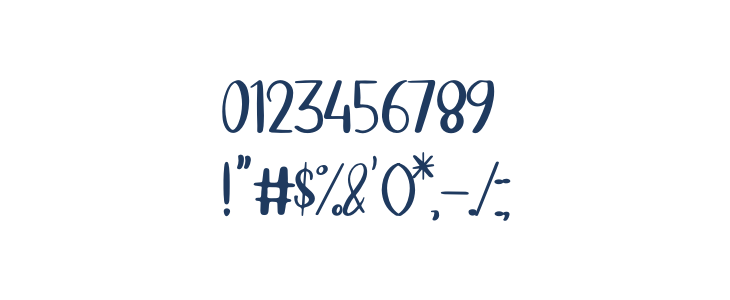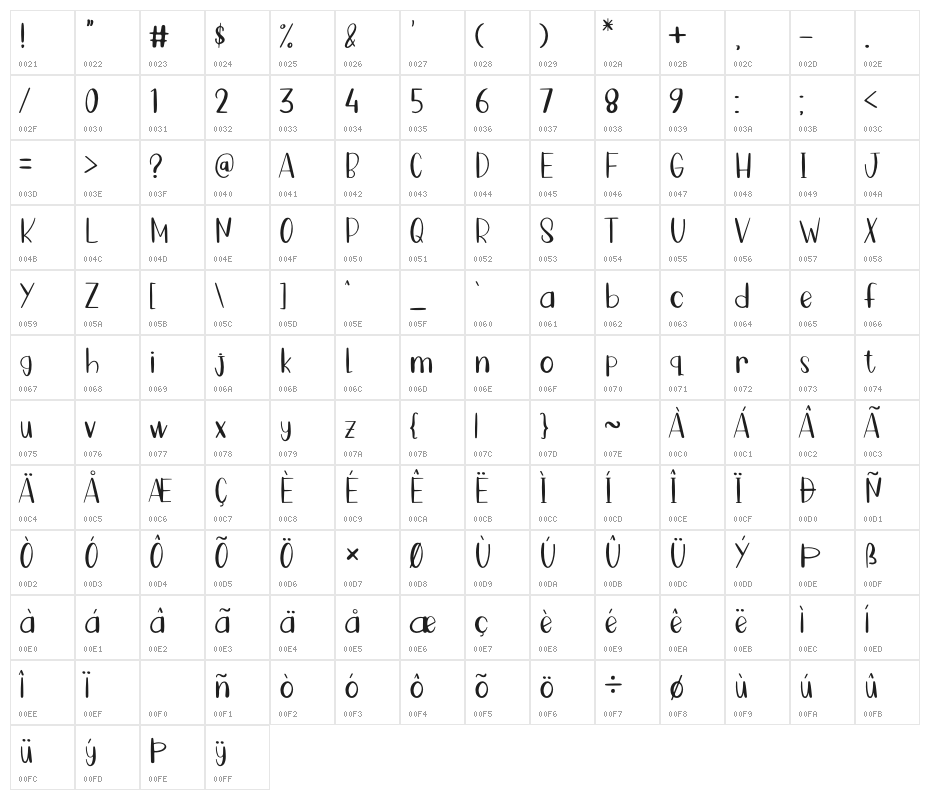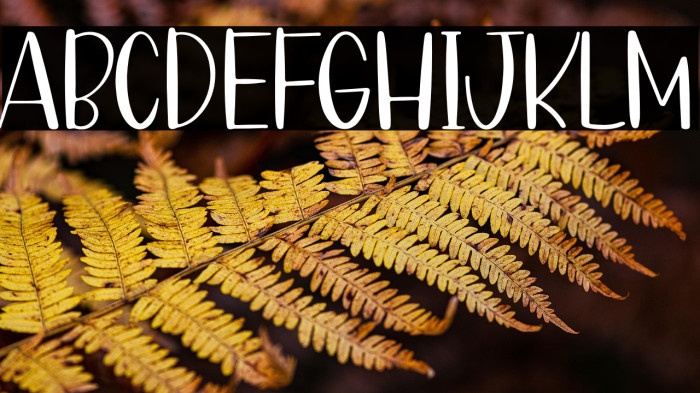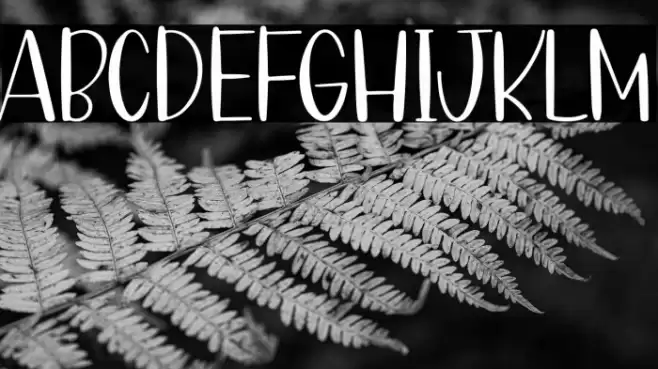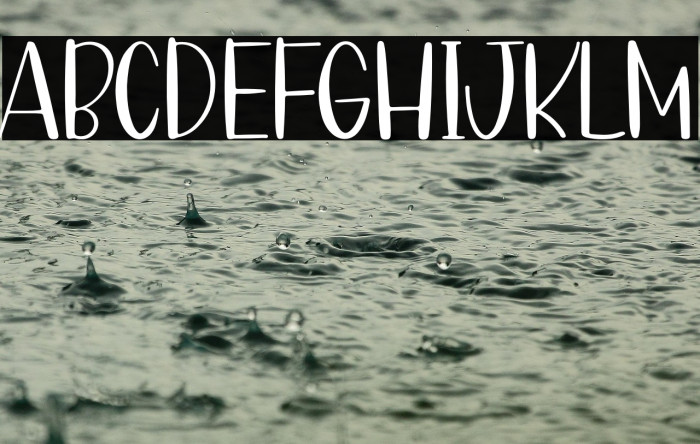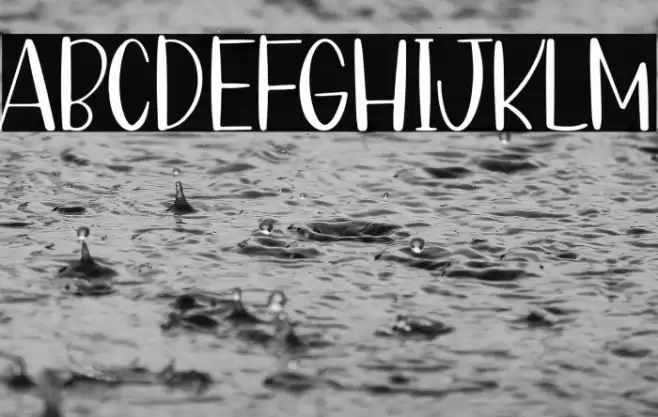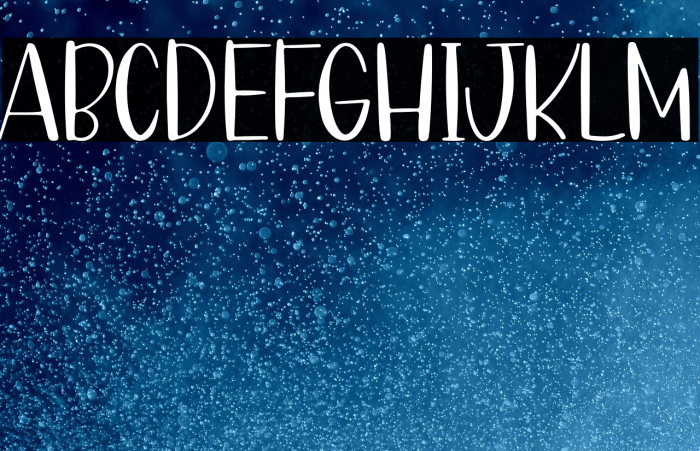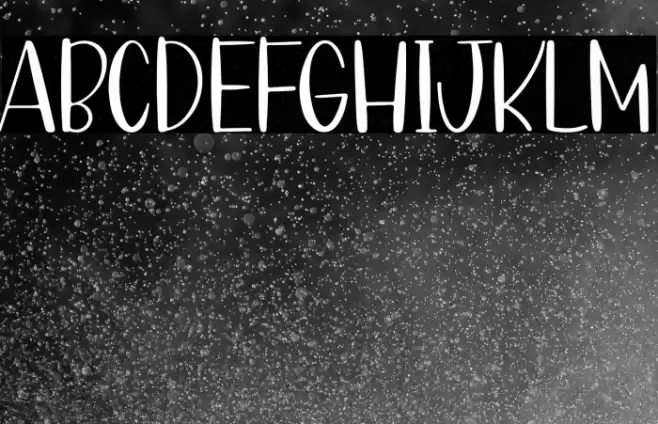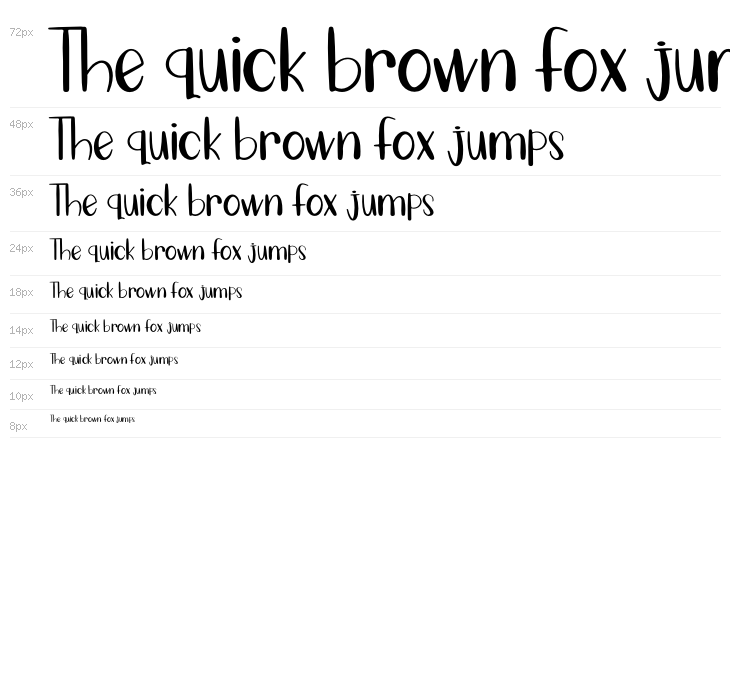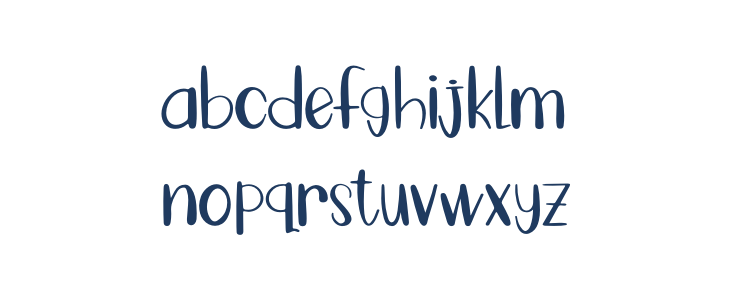
This font features a playful and whimsical style, characterized by its hand-drawn appearance. The letters are slightly irregular, giving them a casual and friendly feel. The uppercase letters are tall and narrow, while the lowercase letters have a more rounded and approachable look. The numbers and special characters maintain the same playful aesthetic, making the font versatile for various creative projects. Its unique style makes it stand out, perfect for designs that require a personal touch.
| Use Case | Logos, Headlines, Social Media Graphics |
| Proposed Projects | Ideal for greeting cards, children's books, playful branding, and social media graphics. |